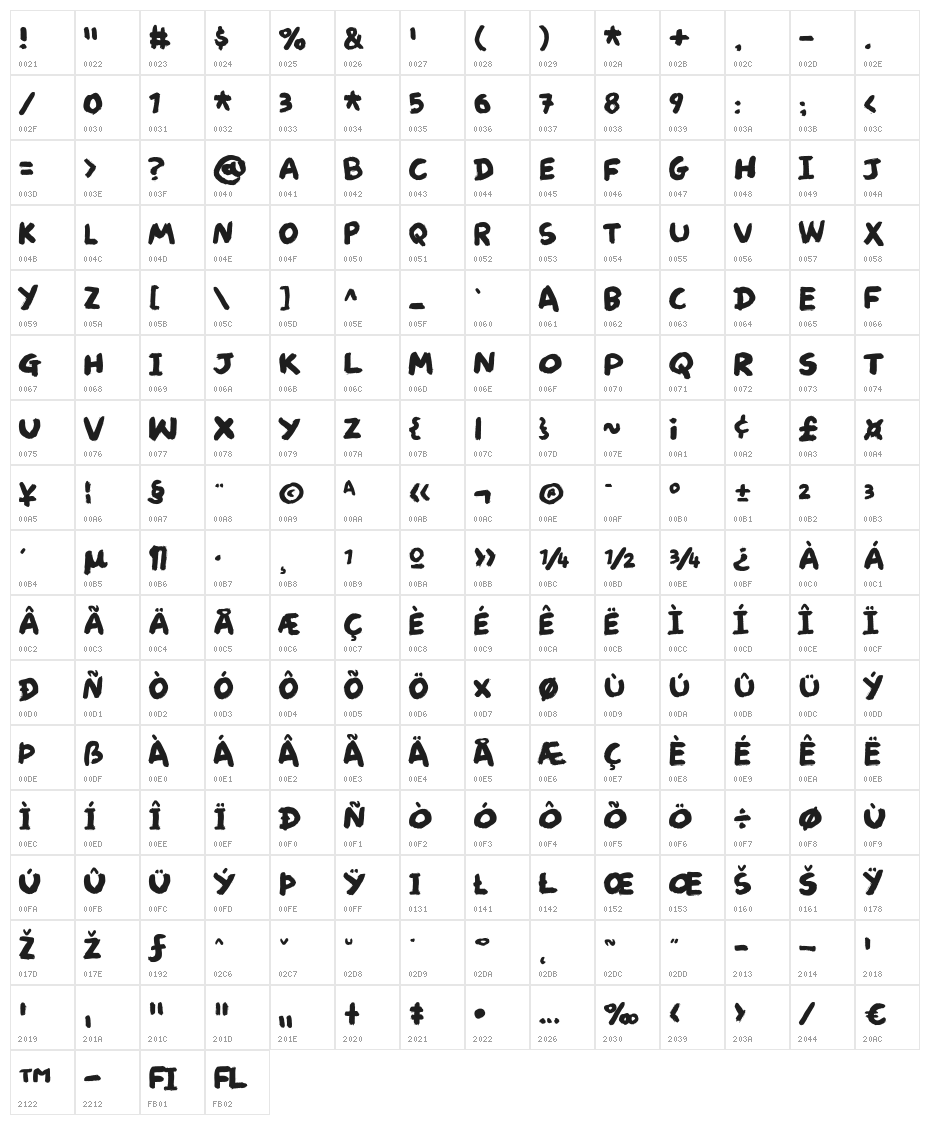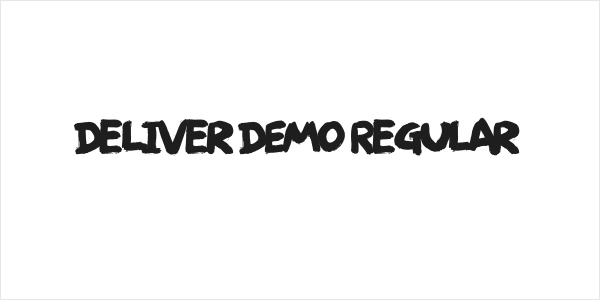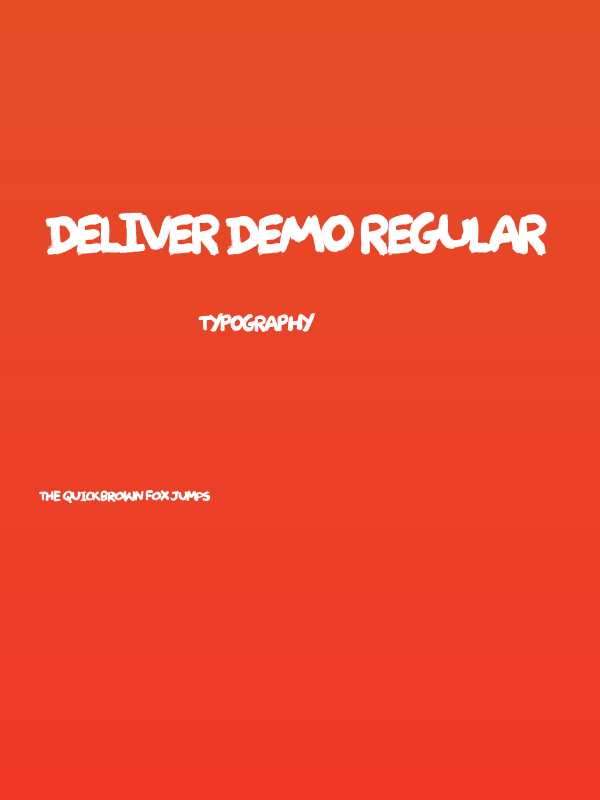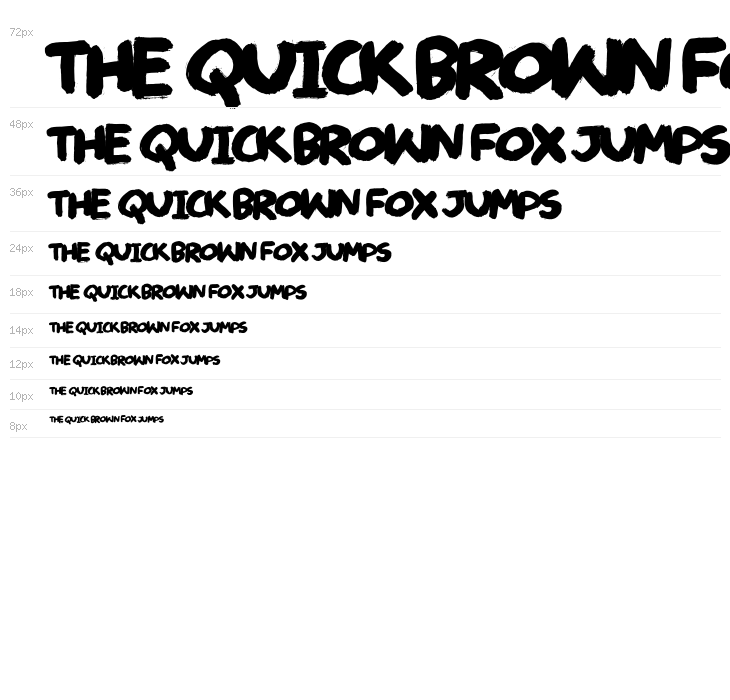
Deliver DEMO Regular Font
Deliver DEMO Regular Description
This font features a bold, brush-like appearance with a hand-painted aesthetic. The characters are thick and have an irregular, organic feel, reminiscent of street art or graffiti. The strokes are uneven, giving it a dynamic and energetic look. The uppercase and lowercase letters maintain a consistent style, with a playful and informal vibe. The numbers and special characters follow the same bold and expressive design, making the font suitable for attention-grabbing headlines or artistic projects.
| Overall Style | Modern, Artistic |
| Use Case | Headlines, Posters, Artistic projects |
| Proposed Projects | Ideal for street art designs, posters, album covers, and any project needing a bold, artistic touch. |